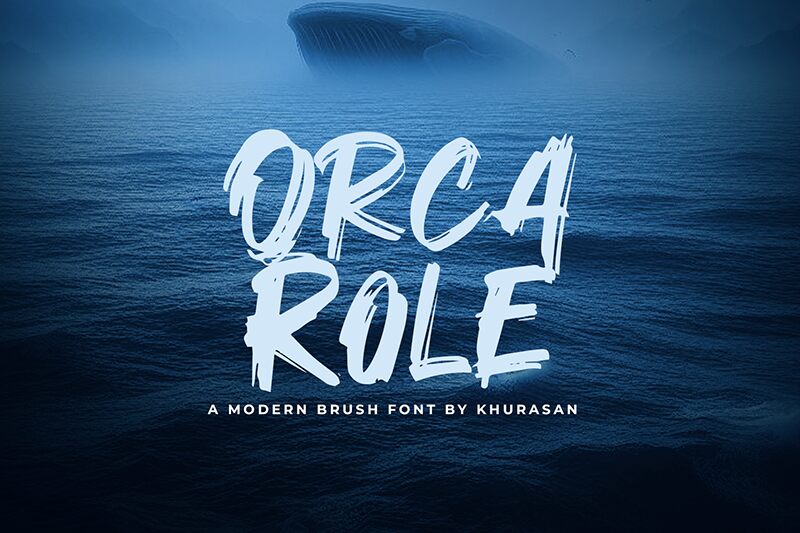
Orca Role, a captivating brush-style font crafted by Khurasan, exudes a bold, dynamic energy that commands attention. Its expressive, organic strokes seamlessly blend rugged elegance and raw, emotive power, creating a visually striking and impactful typeface. The font's versatile nature lends itself to a wide range of design applications, from striking headlines and attention-grabbing logos to gritty, experimental layouts that demand a strong, uncompromising presence.
Orca Role's distinct character shines through in its distinctive, almost calligraphic letterforms, which dance across the page with a sense of movement and fluidity. The font's versatility makes it a compelling choice for designers seeking to imbue their projects with a bold, contemporary aesthetic that resonates with audiences and leaves a lasting impression.
Orca Role